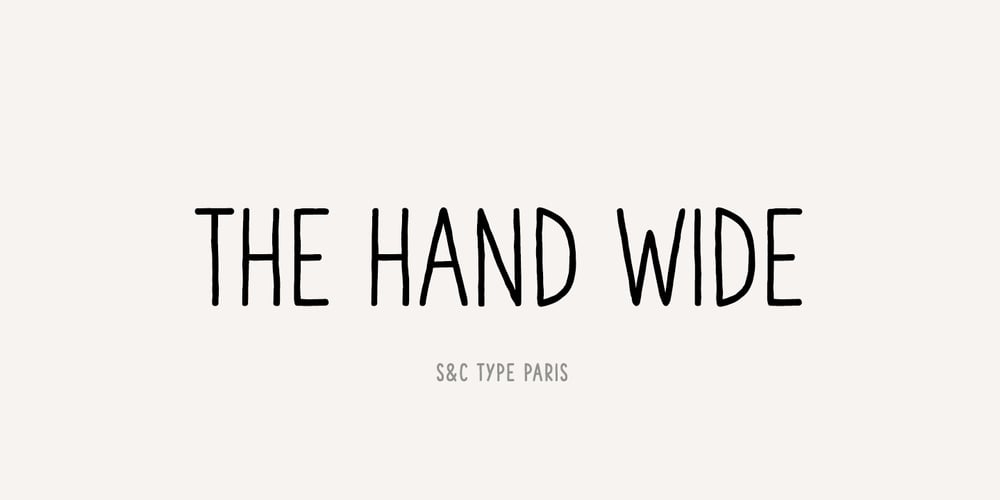
The Hand Wide Font Family was designed by Julien Saurin, Fanny Coulez and published by S&C Type. The Hand Wide contains 8 styles and family package options. The Hand Wide is a handwritten font designed by Fanny Coulez and Julien Saurin in Paris. It’s the extended version of The Hand, coming in 8 heights finely balanced. We wanted to create the most generic and readable handwritten font, to work well in every kind of design.We hope you will enjoy our work :)You could follow us on our Instagram: instagram.com/sc.typeMerci beaucoup!